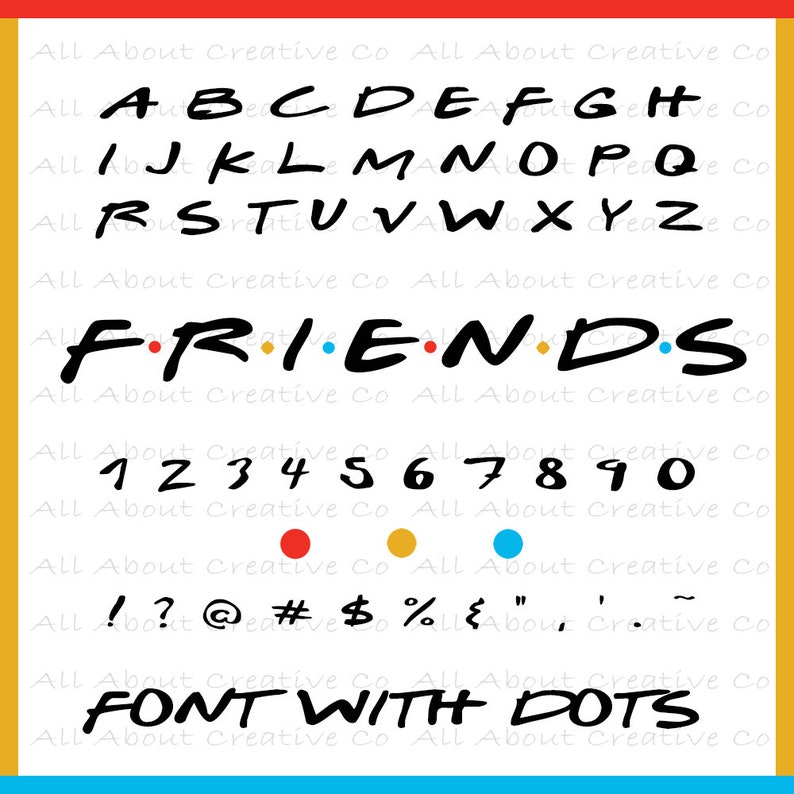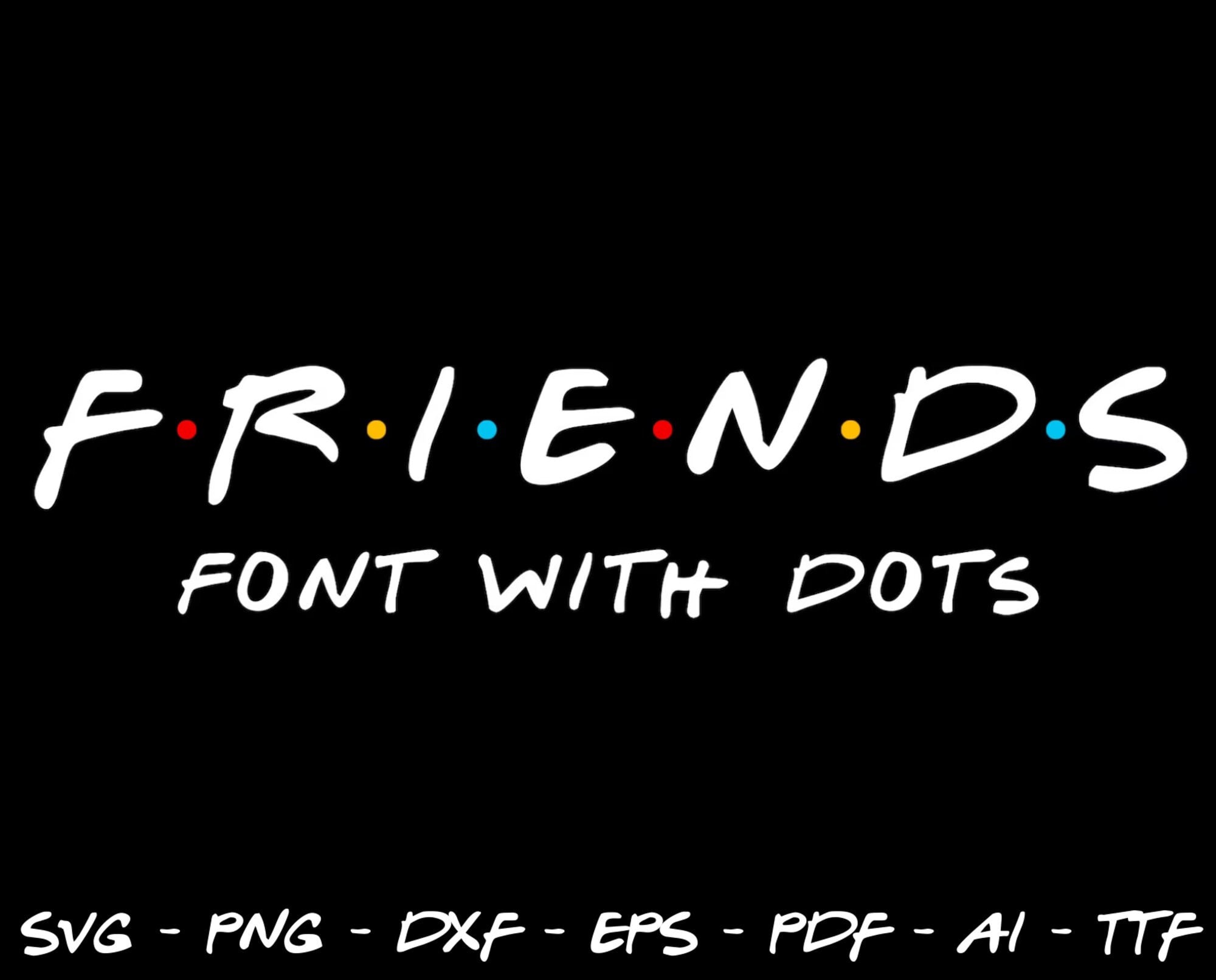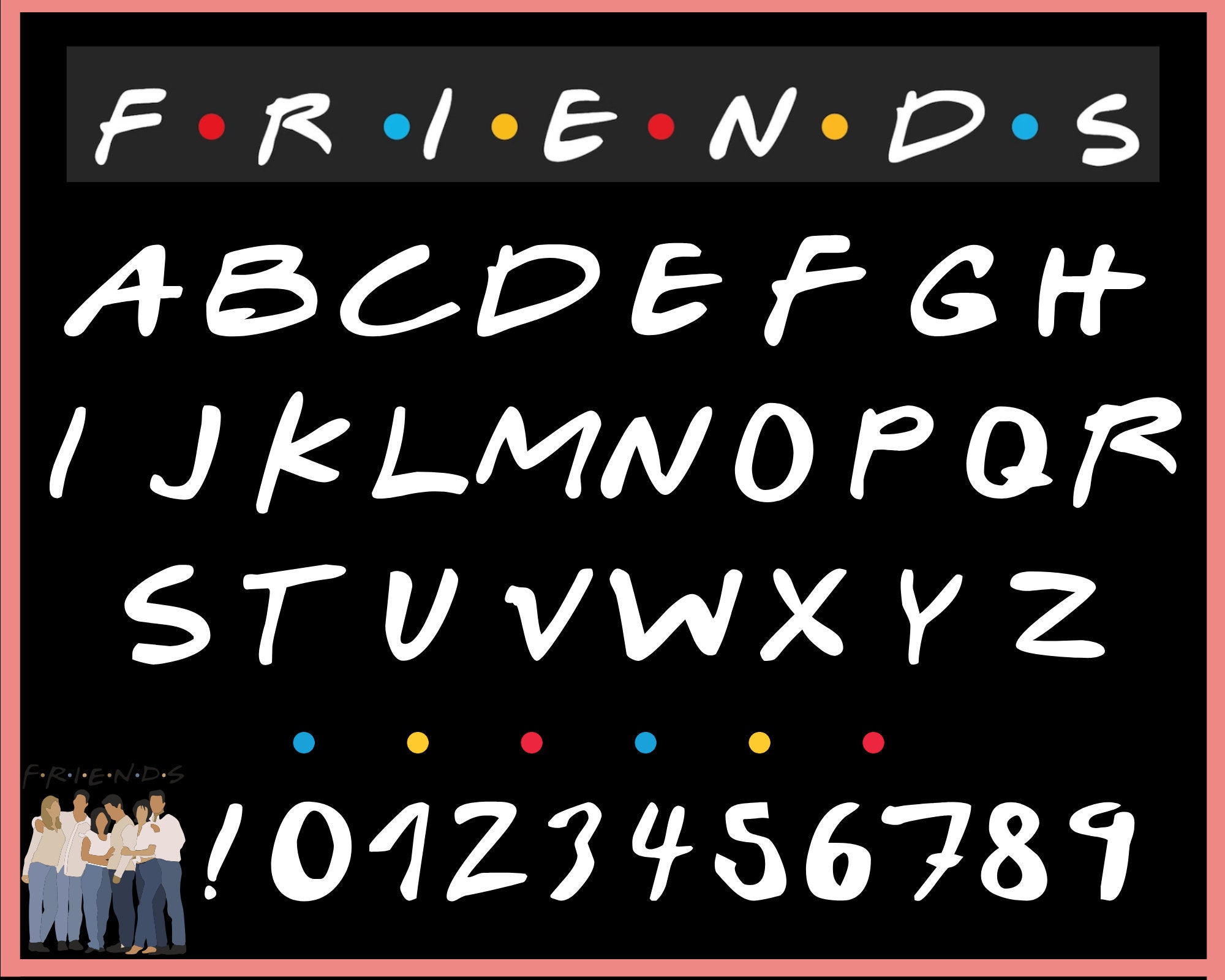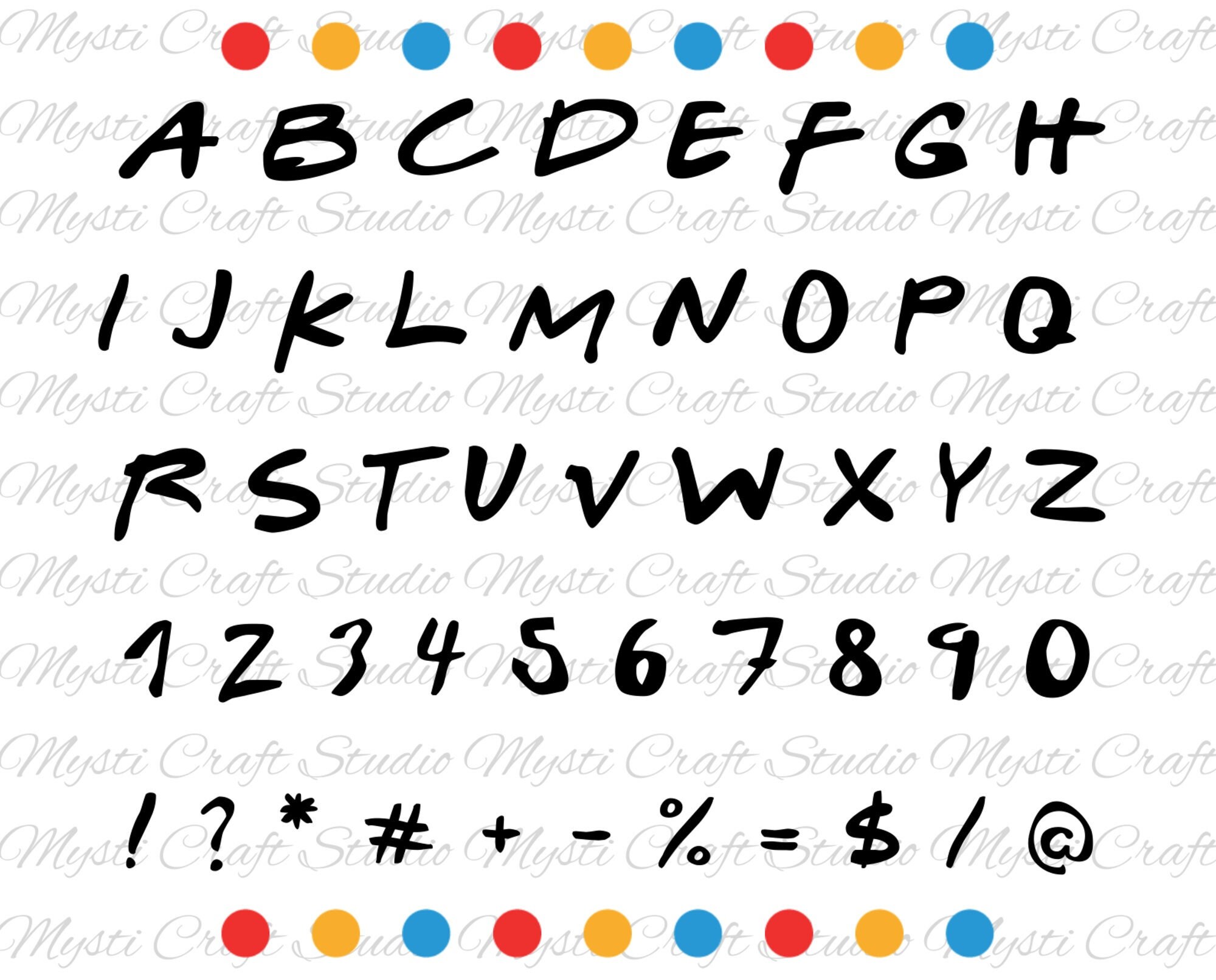
Friends Font For Cricut
Friends Font For Cricut - Learn how to create designs with the friends font on cricut, a font inspired by the iconic sitcom. Looking for fonts for your cricut cuts and crafts? Use these free friends fonts to recreate the logo in your own. One of the most popular fonts on cricut is the friends font, which is perfect for creating projects that are both fun and stylish. Find out how to download,. To save you time, i've created a font called friends that looks exactly like the one on the show. There's no difference at all. Friends tv show just celebrated its 25th anniversary. We have free downloads for monograms, writing, cursive styles and more!
We have free downloads for monograms, writing, cursive styles and more! Find out how to download,. Looking for fonts for your cricut cuts and crafts? There's no difference at all. Learn how to create designs with the friends font on cricut, a font inspired by the iconic sitcom. One of the most popular fonts on cricut is the friends font, which is perfect for creating projects that are both fun and stylish. Friends tv show just celebrated its 25th anniversary. Use these free friends fonts to recreate the logo in your own. To save you time, i've created a font called friends that looks exactly like the one on the show.
To save you time, i've created a font called friends that looks exactly like the one on the show. Use these free friends fonts to recreate the logo in your own. We have free downloads for monograms, writing, cursive styles and more! There's no difference at all. Find out how to download,. One of the most popular fonts on cricut is the friends font, which is perfect for creating projects that are both fun and stylish. Learn how to create designs with the friends font on cricut, a font inspired by the iconic sitcom. Looking for fonts for your cricut cuts and crafts? Friends tv show just celebrated its 25th anniversary.
Use these free friends fonts to recreate the logo in your own. There's no difference at all. Learn how to create designs with the friends font on cricut, a font inspired by the iconic sitcom. Looking for fonts for your cricut cuts and crafts? Friends tv show just celebrated its 25th anniversary.
To save you time, i've created a font called friends that looks exactly like the one on the show. Looking for fonts for your cricut cuts and crafts? Use these free friends fonts to recreate the logo in your own. Learn how to create designs with the friends font on cricut, a font inspired by the iconic sitcom. We have.
We have free downloads for monograms, writing, cursive styles and more! To save you time, i've created a font called friends that looks exactly like the one on the show. Friends tv show just celebrated its 25th anniversary. Use these free friends fonts to recreate the logo in your own. There's no difference at all.
Learn how to create designs with the friends font on cricut, a font inspired by the iconic sitcom. To save you time, i've created a font called friends that looks exactly like the one on the show. Friends tv show just celebrated its 25th anniversary. Find out how to download,. One of the most popular fonts on cricut is the.
One of the most popular fonts on cricut is the friends font, which is perfect for creating projects that are both fun and stylish. There's no difference at all. Looking for fonts for your cricut cuts and crafts? Friends tv show just celebrated its 25th anniversary. Use these free friends fonts to recreate the logo in your own.
Looking for fonts for your cricut cuts and crafts? Use these free friends fonts to recreate the logo in your own. Learn how to create designs with the friends font on cricut, a font inspired by the iconic sitcom. Friends tv show just celebrated its 25th anniversary. There's no difference at all.
Looking for fonts for your cricut cuts and crafts? One of the most popular fonts on cricut is the friends font, which is perfect for creating projects that are both fun and stylish. To save you time, i've created a font called friends that looks exactly like the one on the show. Learn how to create designs with the friends.
Looking for fonts for your cricut cuts and crafts? We have free downloads for monograms, writing, cursive styles and more! Find out how to download,. There's no difference at all. Learn how to create designs with the friends font on cricut, a font inspired by the iconic sitcom.
One of the most popular fonts on cricut is the friends font, which is perfect for creating projects that are both fun and stylish. To save you time, i've created a font called friends that looks exactly like the one on the show. Use these free friends fonts to recreate the logo in your own. There's no difference at all..
Use These Free Friends Fonts To Recreate The Logo In Your Own.
One of the most popular fonts on cricut is the friends font, which is perfect for creating projects that are both fun and stylish. We have free downloads for monograms, writing, cursive styles and more! To save you time, i've created a font called friends that looks exactly like the one on the show.